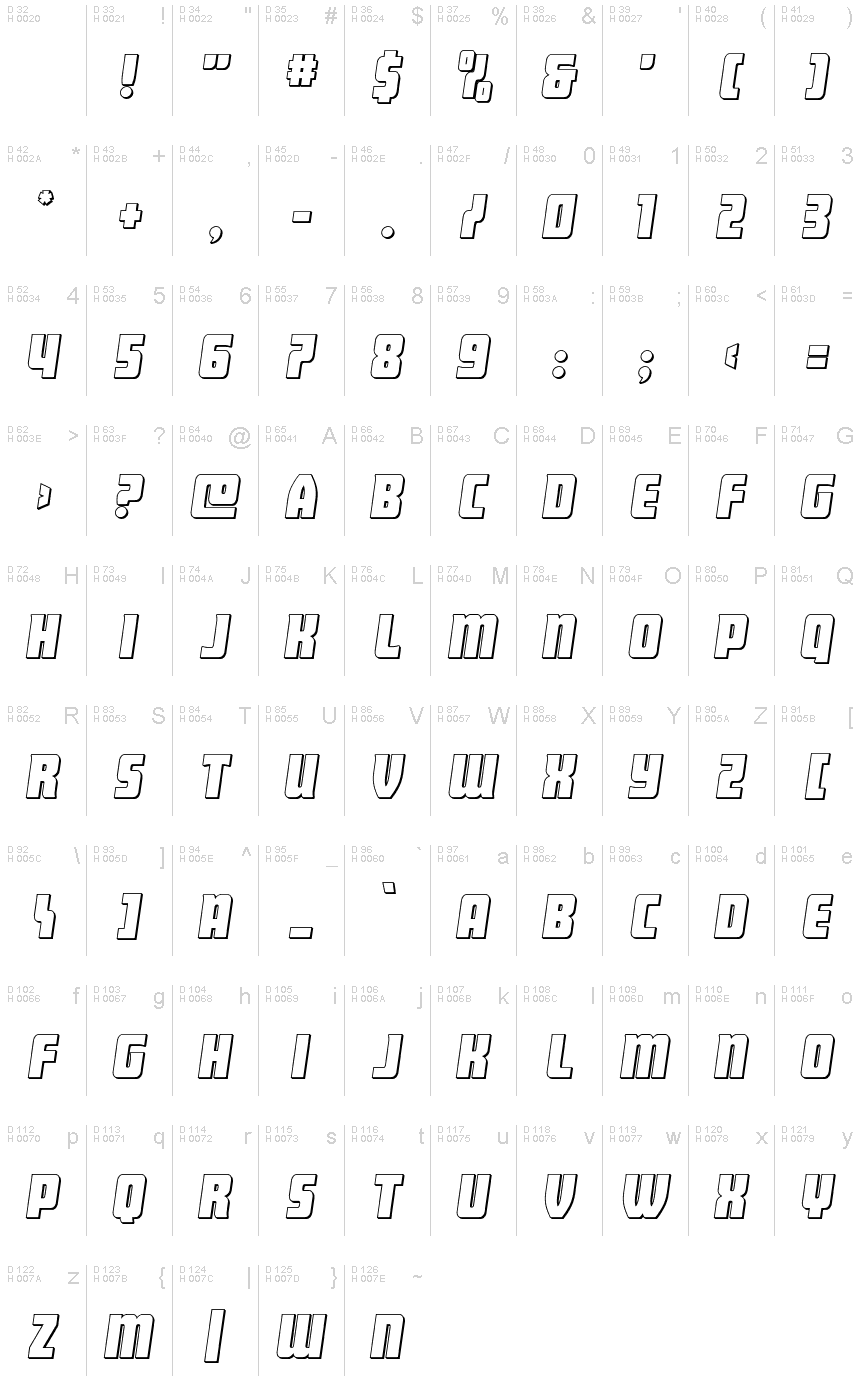
Intrepid Spear 3D
Intrepid Spear 3D is a striking addition to the Intrepid Spear font family by Iconian Fonts. This bold, condensed display font exudes a futuristic vibe with its 3D techno style, making each character pop with an almost tangible sense of depth. The font's sharp lines and solid forms create a visual impact that can't be ignored, while its clean geometry ensures readability.
With two sub-families—Regular and Lower Case—Intrepid Spear 3D offers versatility for various creative projects. Whether you're crafting eye-catching headlines for editorial pieces or looking to inject some modern flair into branding materials, this font is well-suited for those seeking a powerful typographic statement.
The aesthetic appeal of Intrepid Spear 3D lies in its meticulous design that balances the weight and condensed width to deliver letters that are both assertive and harmoniously structured. Perfect for designers aiming to make a bold statement or add a layer of sophistication to their work, Intrepid Spear 3D promises to be an asset in any designer's toolkit.